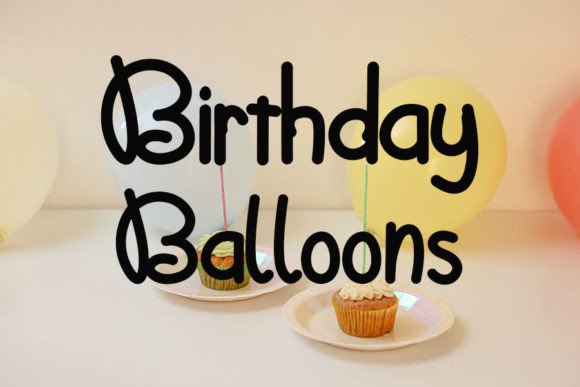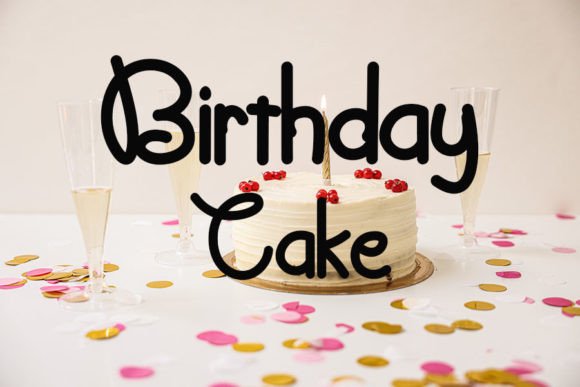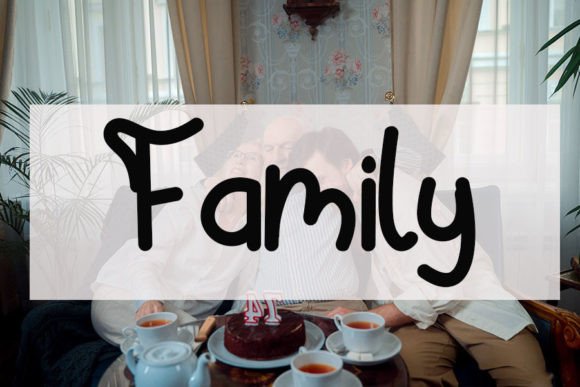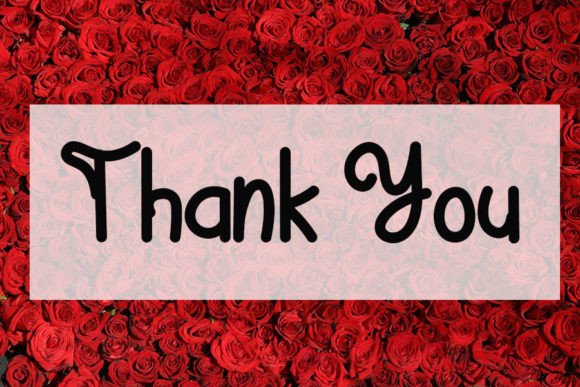
Introducing Happy Birthday Font: The Perfect Addition to Your Design Collection
Are you tired of using the same old fonts for your designs? Look no further! Happy Birthday Font is a beautiful, handwritten font that is sure to add a touch of elegance and whimsy to any project. With its incredibly distinct and timeless style, this font is perfect for designers and crafters looking to create spectacular designs that stand out from the crowd.
A Neat and Friendly Handwritten Font
Happy Birthday Font is a neat and friendly handwritten font that is described by an elegant touch. Its unique style is perfect for a variety of projects, from birthday cards and invitations to posters and social media graphics. The font’s elegant touch makes it suitable for more formal designs, while its friendly and approachable feel makes it perfect for more casual projects.
Distinct and Timeless Style
One of the standout features of Happy Birthday Font is its incredibly distinct and timeless style. Unlike other fonts that may look trendy or dated after a few months, Happy Birthday Font has a classic feel that will never go out of style. Its unique lettering and elegant touch make it a versatile font that can be used for a wide range of projects, from modern and trendy designs to more traditional and vintage-inspired projects.
Happy Birthday Font is perfect for designers and crafters who are looking to add a personal touch to their projects. Whether you’re creating custom birthday cards, designing posters for a client’s business, or crafting social media graphics for a brand, this font is sure to impress. Its unique style and elegant touch make it a great addition to any design collection, and its versatility ensures that it can be used for a wide range of projects.
Use Happy Birthday Font to Create Spectacular Designs
With Happy Birthday Font, the possibilities are endless! Here are just a few ideas for using this beautiful font in your designs:
- Create custom birthday cards and invitations that are sure to impress
- Design eye-catching posters and flyers for events and promotions
- Craft social media graphics that stand out from the crowd
- Add a personal touch to your branding and marketing materials
- Create beautiful and unique typography for your website or blog
Why Choose Happy Birthday Font?
So why choose Happy Birthday Font over other fonts on the market? Here are just a few reasons:
- Unique and distinct style that will set your designs apart
- Elegant touch that makes it suitable for formal and informal designs
- Timeless feel that will never go out of style
- Versatile and can be used for a wide range of projects
- Perfect for designers and crafters looking to add a personal touch to their projects
Get Creative with Happy Birthday Font
In conclusion, Happy Birthday Font is a beautiful and versatile font that is perfect for designers and crafters looking to add a personal touch to their projects. Its unique style, elegant touch, and timeless feel make it a great addition to any design collection. So why choose a boring, generic font when you can use Happy Birthday Font to create spectacular designs that stand out from the crowd?